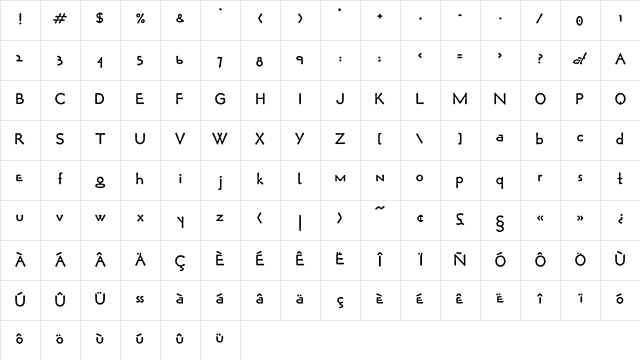
OpticonLoose Medium
Design Context for OpticonLoose
OpticonLoose is a composed and adaptable typeface that performs quietly and consistently across a wide range of design contexts.